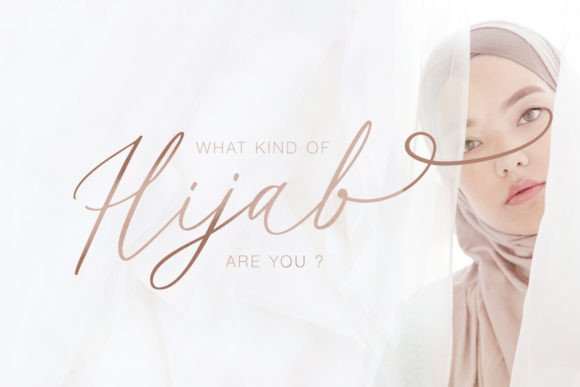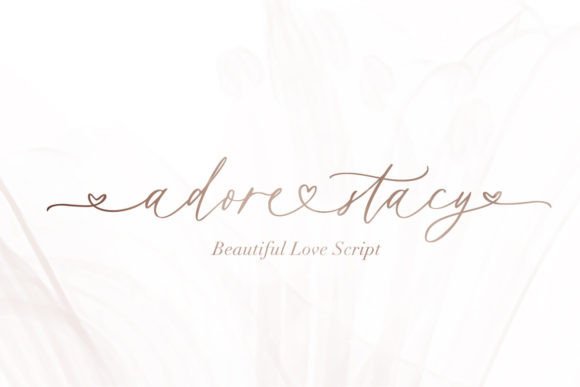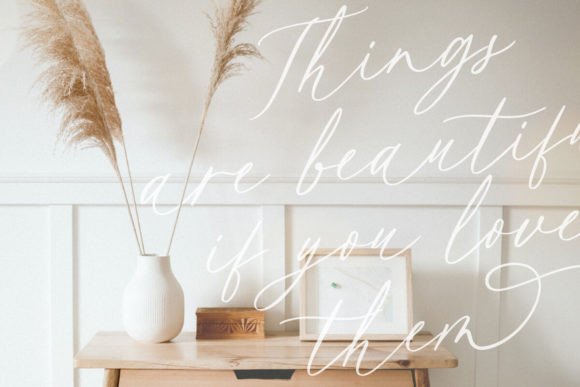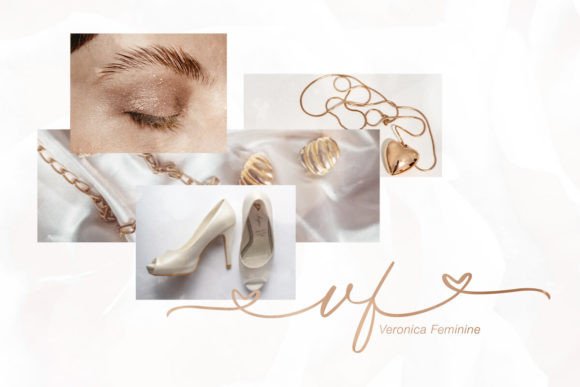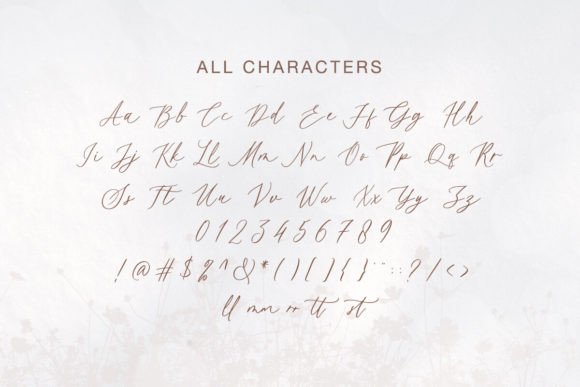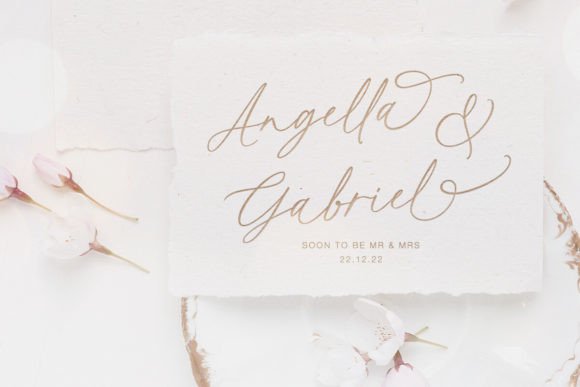
Adore Stacy Font: Elevate Your Designs with Elegance and Sophistication
Are you looking for a font that can add a touch of love and elegance to your designs? Look no further than Adore Stacy, a beautiful handwritten script font that is sure to impress. With its fluid and flowing style, Adore Stacy is perfect for designers and crafters who want to create stunning wedding invitations, elegant branding materials, and eye-catching digital content.
The Inspiration Behind Adore Stacy
Adore Stacy is a brush-lettered font that is inspired by the art of handwriting. Its natural, expressive feel makes it perfect for designs that require a personal touch. The font’s creator aimed to capture the essence of handwritten script, making it suitable for a wide range of design projects, from wedding invitations to packaging labels.
Key Features of Adore Stacy Font
- Fluid and Flowing Style: Adore Stacy features a smooth, connected script that mimics the look of handwriting.
- Natural and Expressive Feel: The font’s brush-lettered style gives it a unique, organic feel that adds a touch of personality to any design.
- Suitable for Wedding Invitations: Adore Stacy is perfect for creating beautiful, elegant wedding invitations that will make your clients swoon.
- Easy to Read: Despite its elegant style, Adore Stacy is highly legible, making it suitable for both digital and print designs.
How to Use Adore Stacy in Your Designs
Adore Stacy is a versatile font that can be used in a variety of design projects. Here are a few ideas to get you started:
- Wedding Invitations: Use Adore Stacy to create stunning wedding invitations that set the tone for the big day.
- Branding Materials: Add a touch of elegance to your branding materials, such as business cards, letterheads, and packaging labels.
- Digital Content: Use Adore Stacy to create eye-catching social media graphics, blog posts, and email newsletters.
- Crafting Projects: Adore Stacy is perfect for crafters who want to add a personal touch to their projects, such as handmade cards, scrapbooking, and DIY home decor.
Benefits of Using Adore Stacy
So why choose Adore Stacy over other fonts? Here are just a few benefits of using this beautiful script font:
- Time-Saving: Adore Stacy allows you to create a handwritten look without the time and effort of actual calligraphy.
- Elegance and Sophistication: The font adds a touch of elegance and sophistication to any design, making it perfect for high-end branding and wedding invitations.
- Unique and Memorable: Adore Stacy’s unique style ensures that your designs will stand out from the crowd and leave a lasting impression.
Tips for Pairing Adore Stacy with Other Fonts
To get the most out of Adore Stacy, try pairing it with other fonts that complement its elegant style. Here are a few tips:
- Pair with a Sans-Serif Font: Pair Adore Stacy with a clean sans-serif font, such as Arial or Helvetica, to create a striking contrast.
- Use a Serif Font for Body Text: Use a serif font, such as Times New Roman or Georgia, for body text to create a clear hierarchy of information.
- Experiment with Font Sizes: Play around with different font sizes to create visual interest and emphasize key messages.
Adore Stacy is a beautiful handwritten script font that is sure to elevate your designs with elegance and sophistication. With its fluid and flowing style, natural and expressive feel, and versatility, Adore Stacy is perfect for designers and crafters who want to create stunning wedding invitations, branding materials, and digital content. Whether you’re looking to add a touch of love to your designs or create a lasting impression, Adore Stacy is the perfect choice.